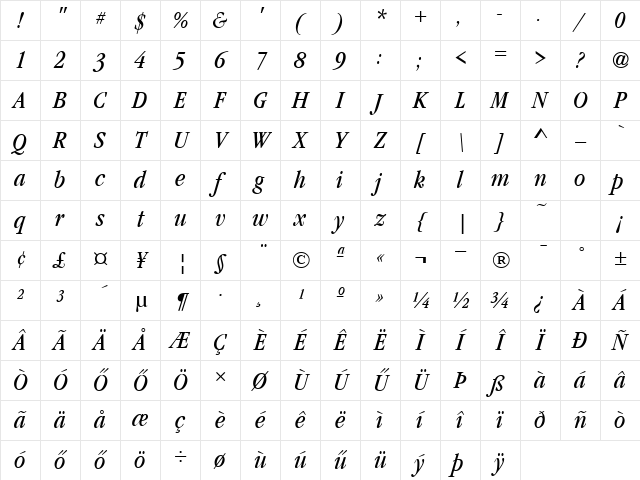
Huni_Gernh Regular
Design Context for Huni_Gernh
Huni_Gernh is a composed and adaptable typeface that performs quietly and consistently across a wide range of design contexts.